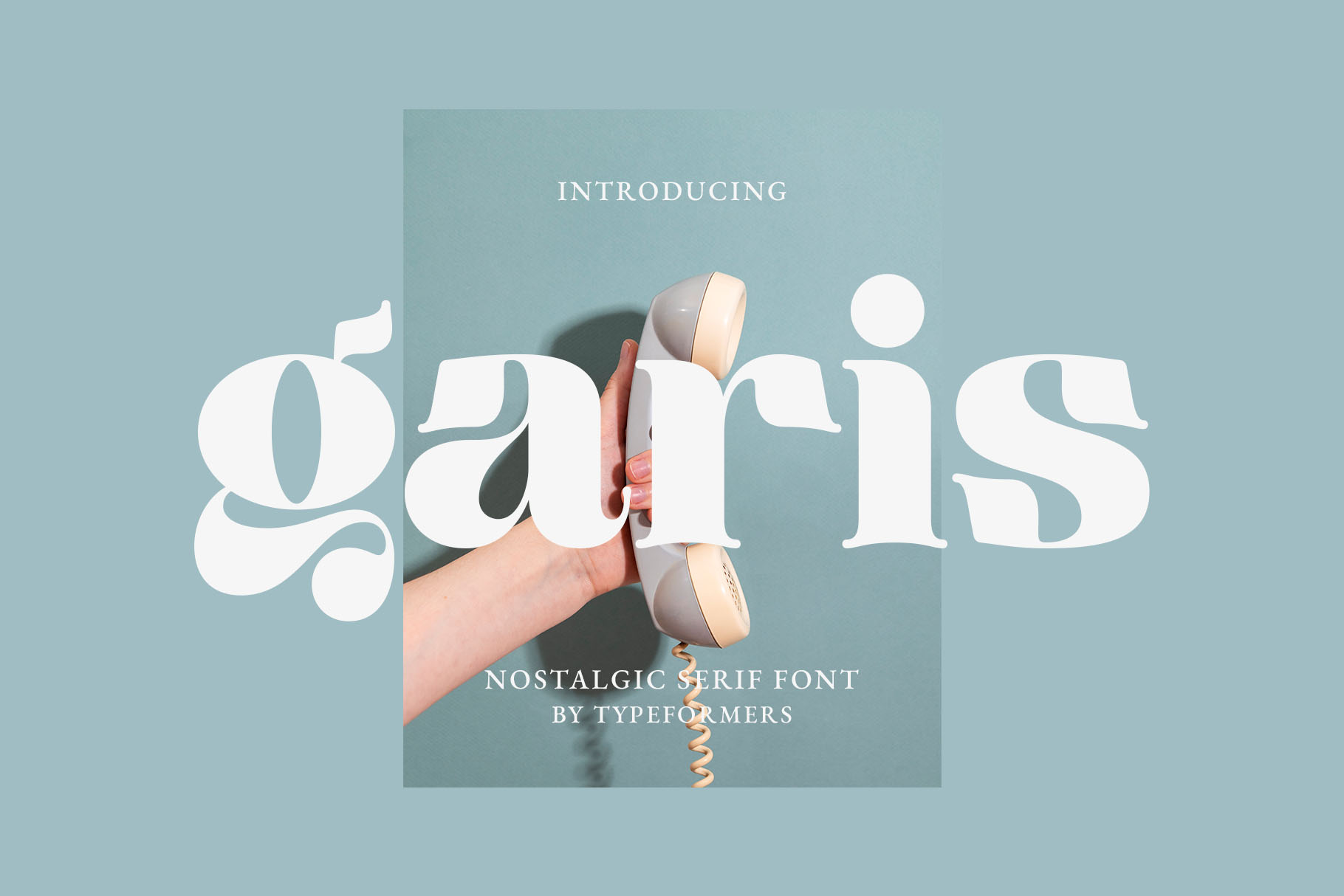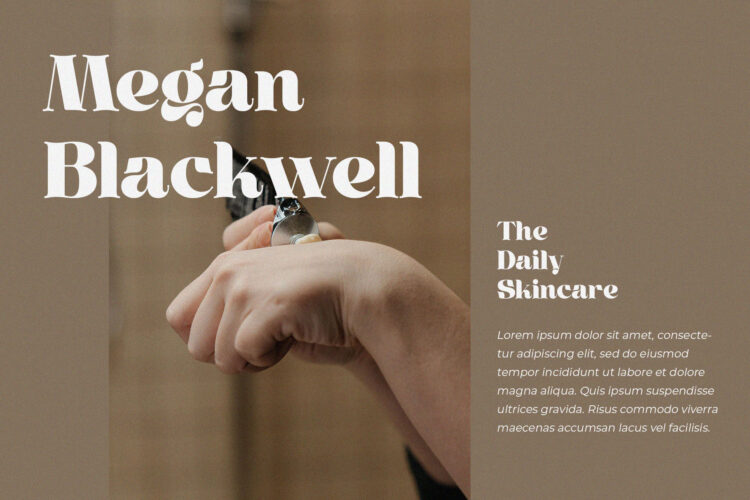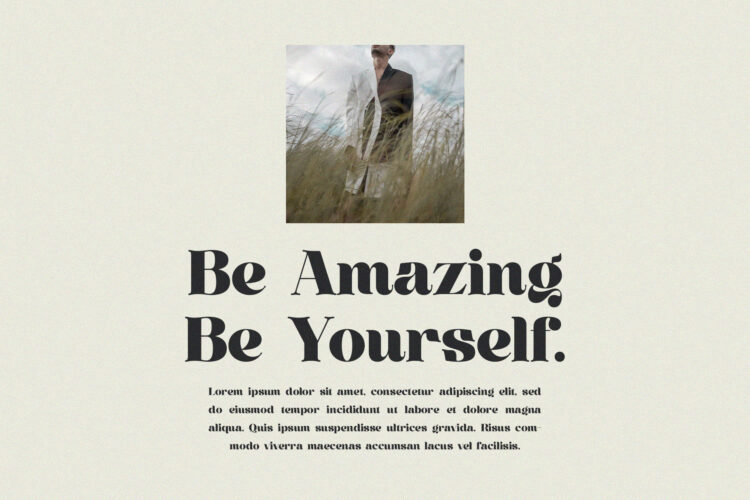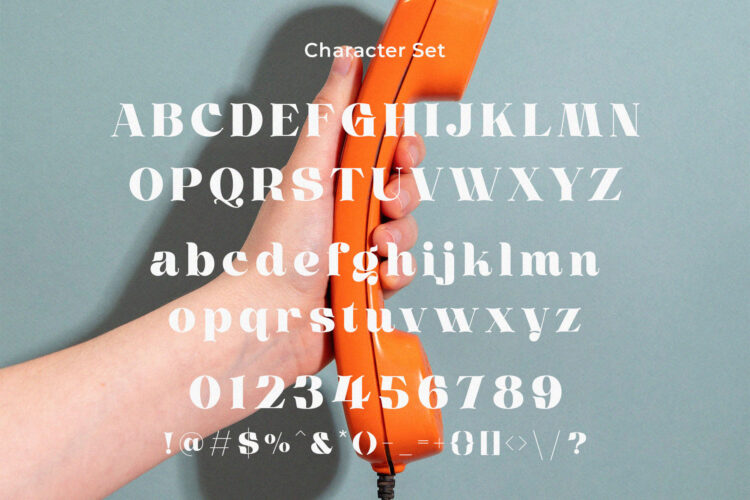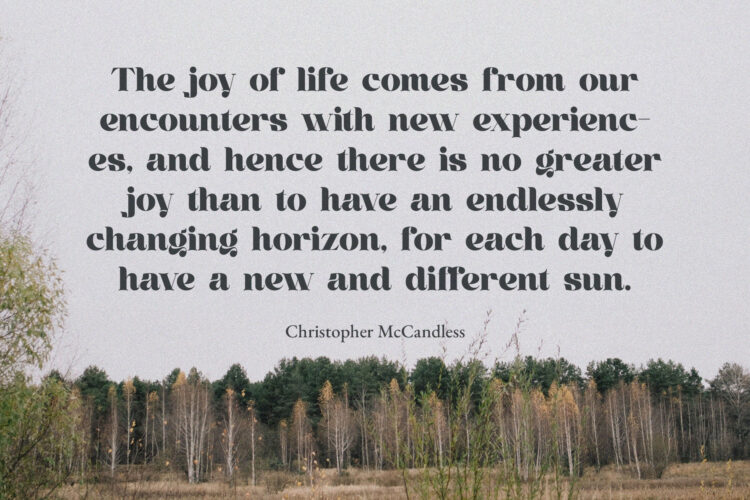
Introducing Garis – Nostalgic Serif Font.
Garis is a modern, elegant and nostalgic font, best used as a display for headings, logos, branding, magazines, product packaging and invitations.